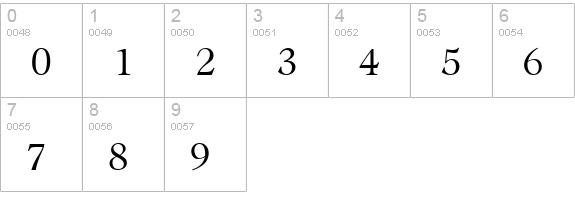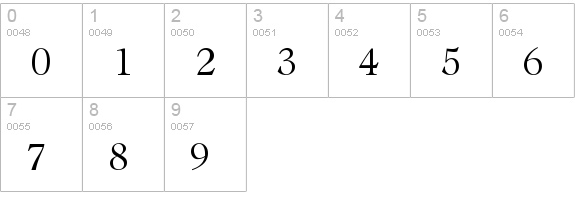
AdroitURWTLig Font Details
AdroitURWTLig is a timeless and elegant font that exudes sophistication and style. Its sleek lines and graceful curves make it perfect for a wide range of design projects, from branding to invitations and beyond. The font's versatility allows it to be used in both formal and casual settings, making it a must-have for any designer's toolkit. Best of all, AdroitURWTLig is completely free to download at FontsMarket.com. This means that you can add this beautiful font to your collection without breaking the bank. Whether you're a seasoned professional or just starting out, AdroitURWTLig is sure to elevate your designs and make a lasting impression. Download it today and see the difference it can make in your projects!